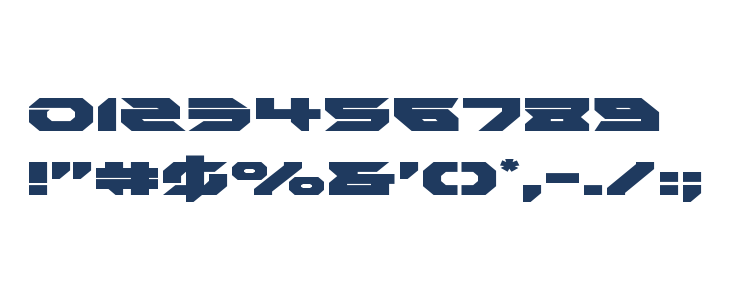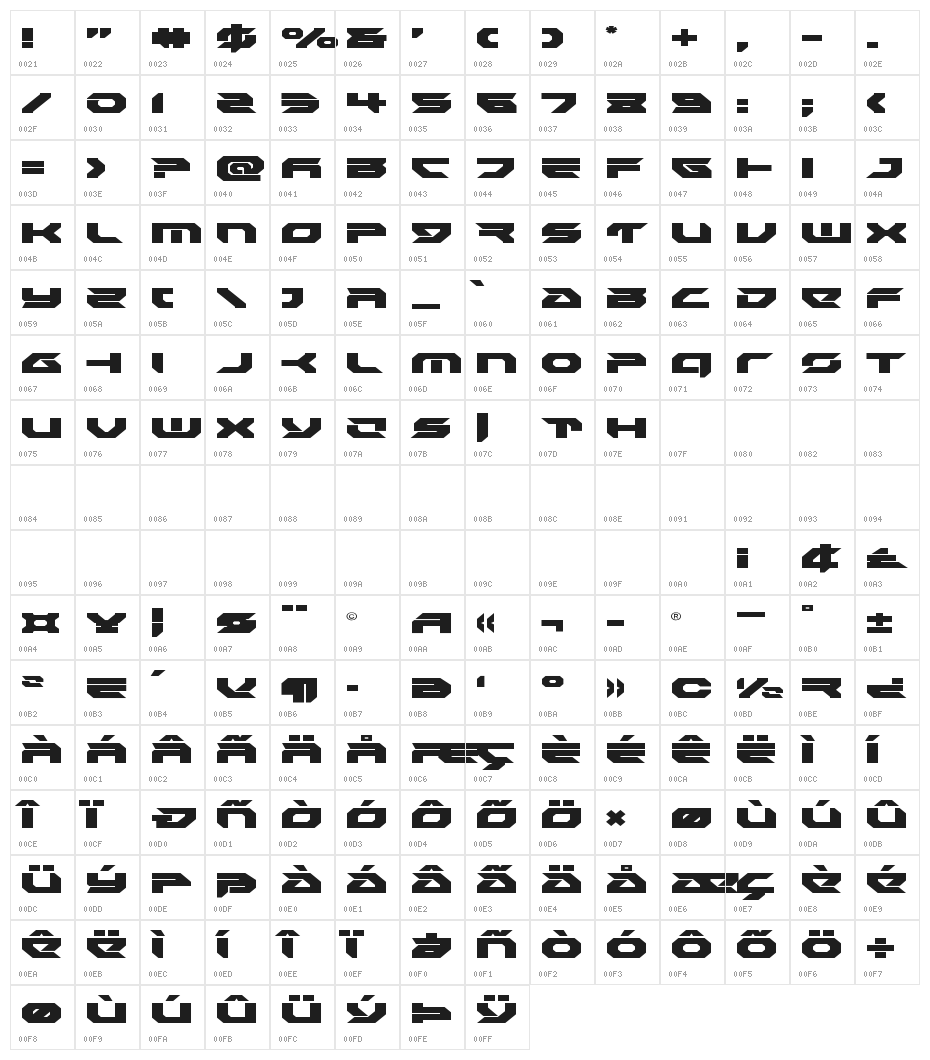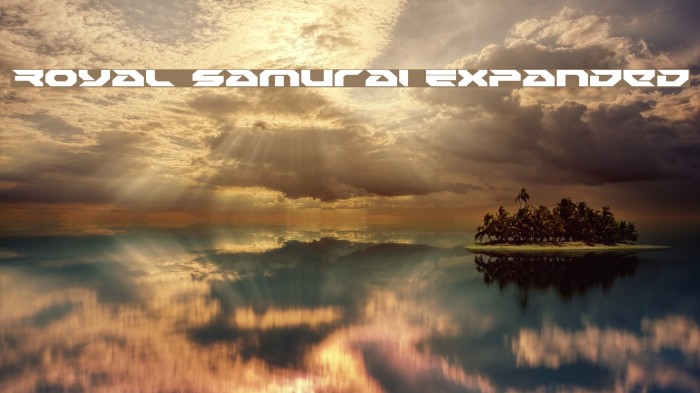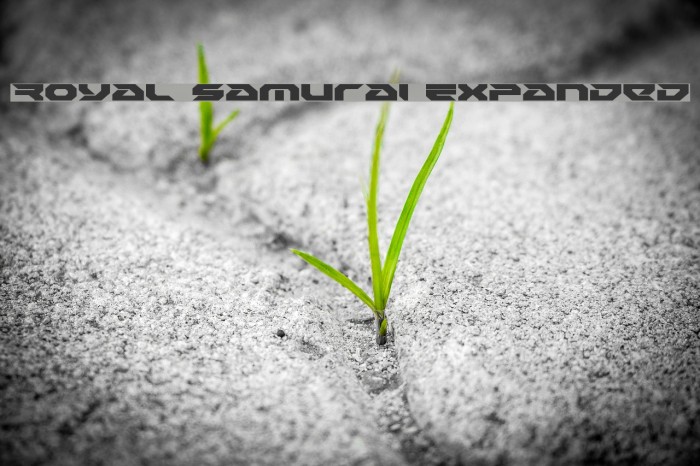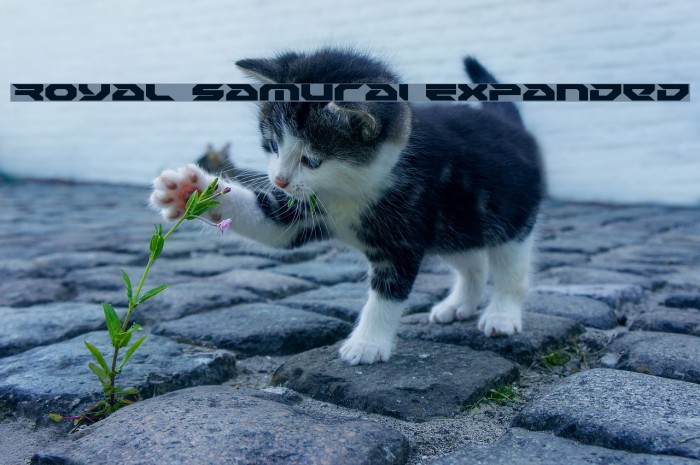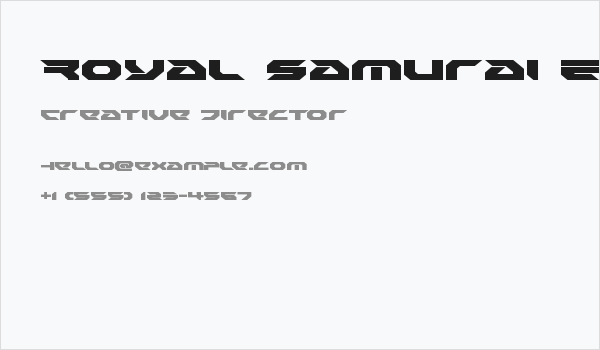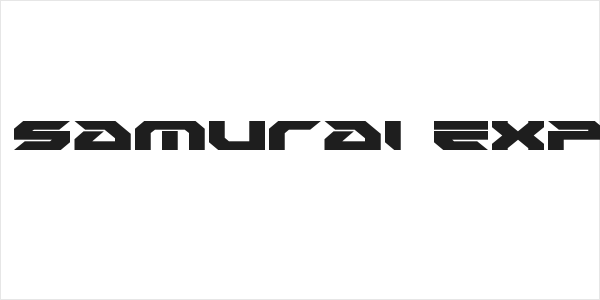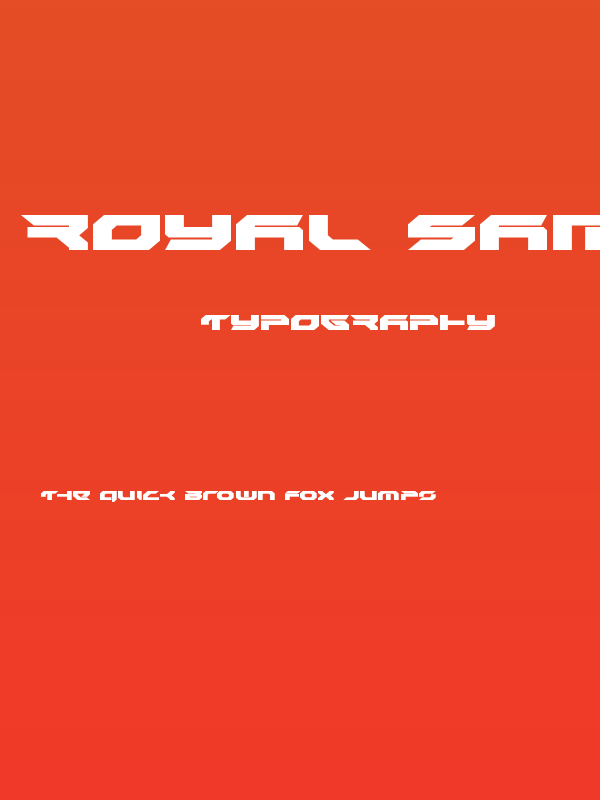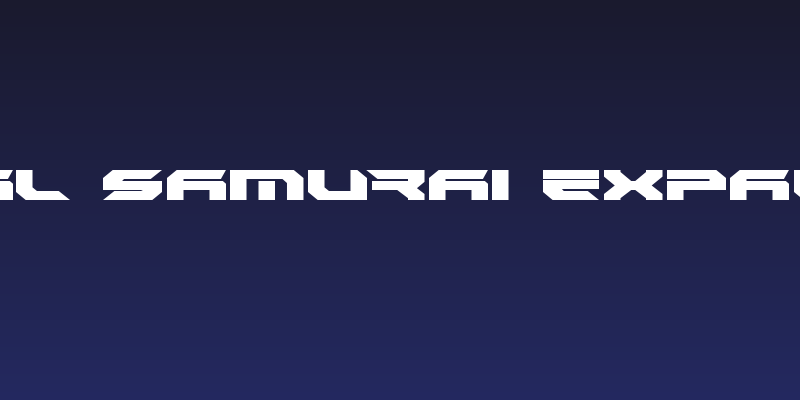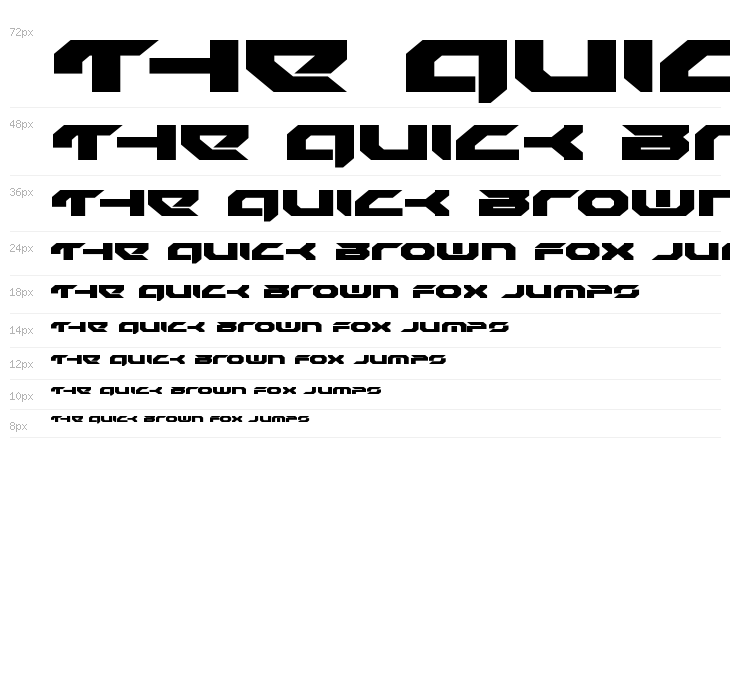
Royal Samurai Expanded Font
Royal Samurai Expanded Description
This font features a bold, futuristic design with sharp, angular edges and a distinctly geometric style. The characters are wide and expansive, creating a strong visual impact. Each letter and number is crafted with precision, incorporating unique cuts and angles that give it a dynamic and aggressive appearance. The font's design is reminiscent of a modern, tech-inspired aesthetic, making it ideal for projects that require a bold statement. The special characters maintain the same angular and geometric style, ensuring consistency across all elements.
| Proposed Projects | Ideal for sci-fi themed designs, video game titles, tech branding, and futuristic posters. |